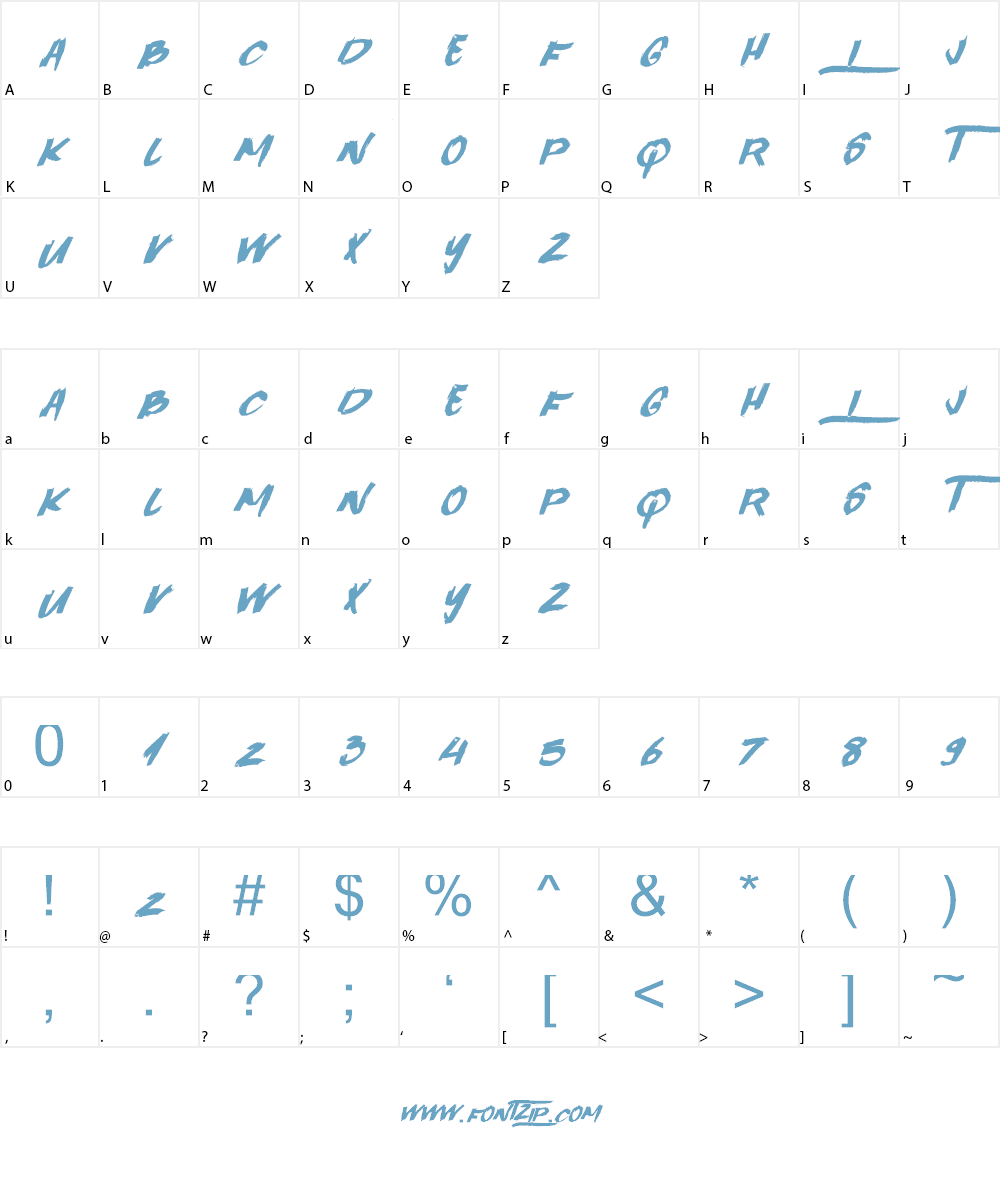
This is handmade Font, Calligraphy style, Suitable for design, element design, wedding, event, t-shirt, logo, badges, sticker, and awesome work about summer.